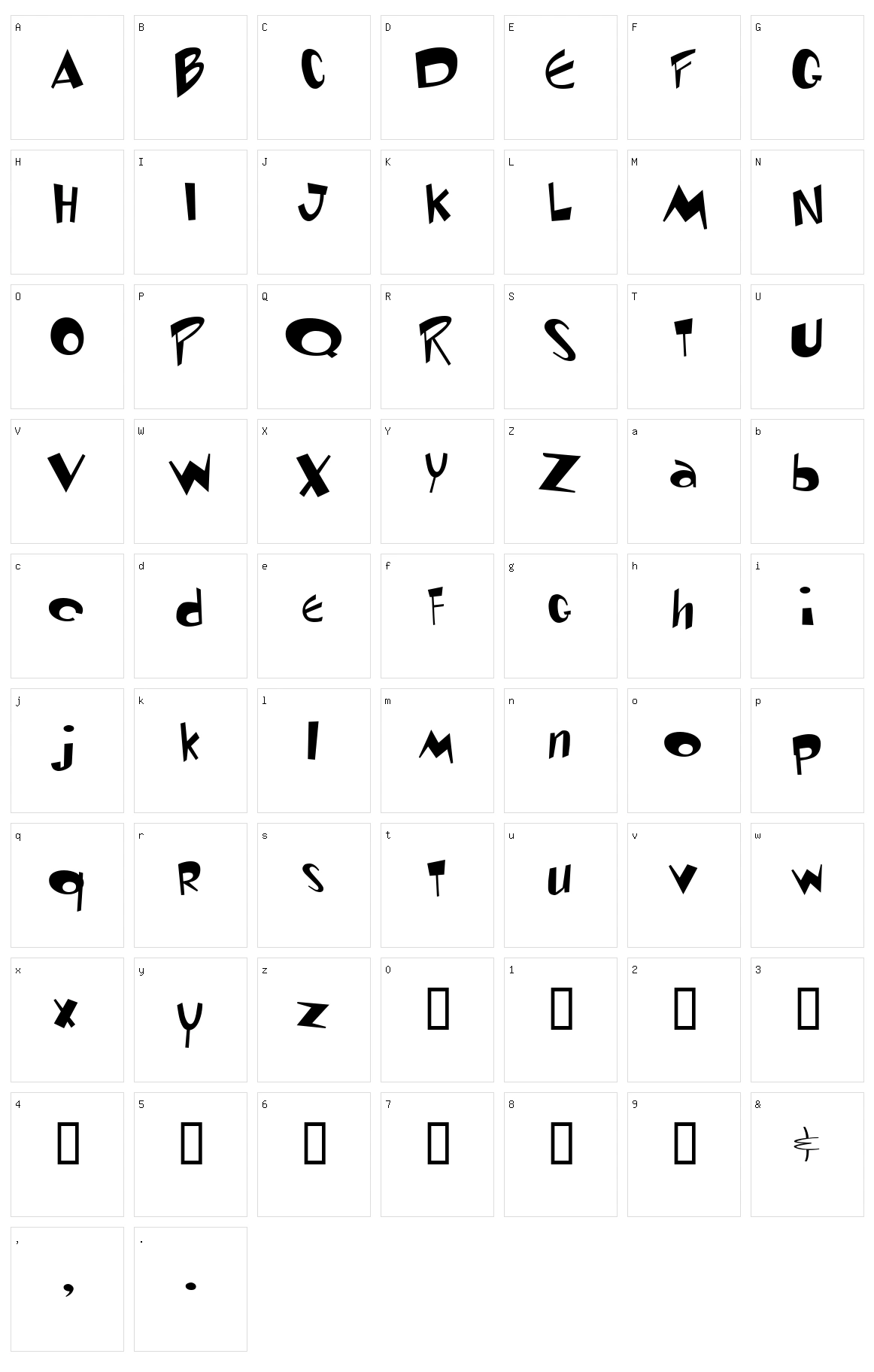
TOONTIME is a font inspired by the distinctive lettering of a certain modern cartoon classic. The font contains many familiar characters, as well as some I created in the style of the original. Until now, this font has been difficult, if not impossible to find.